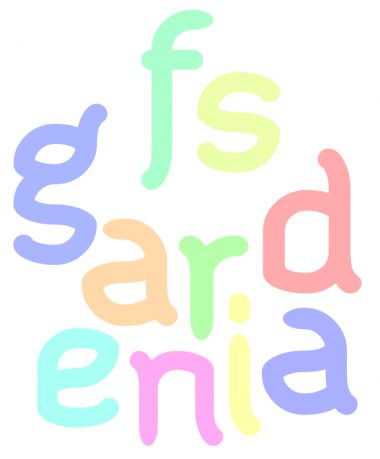
fs gardenia
In my opinion, marker fonts are quite fun to make. This one reminds me of
Salem!
and
Swash Buckle
Great font! So great I can't decide which letter I like best. 10/10+fav (Hey meek! This deserves the white star surrounded by pink!)
You have really hit that marker groove :) 10/10
Stylish and legible :)
This is cool. Very well done. :)
Very nice font! I like it!